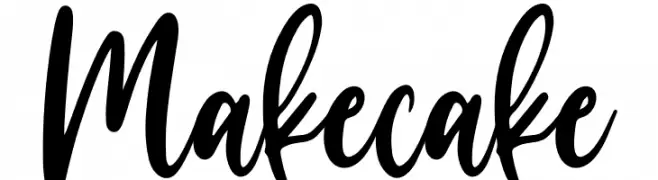
A whimsical script font with flowing, interconnected letters and decorative loops.
A bold, flowing script font with interconnected characters and a handwritten style.